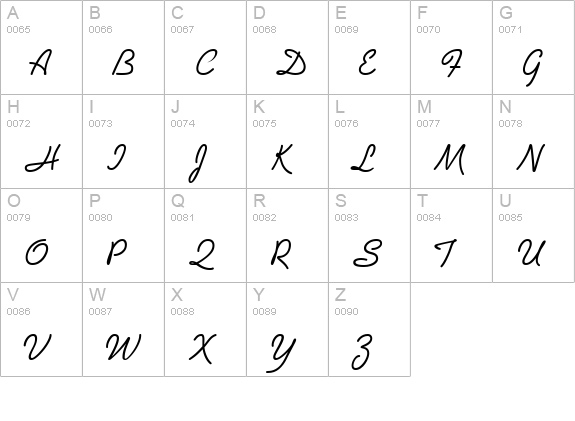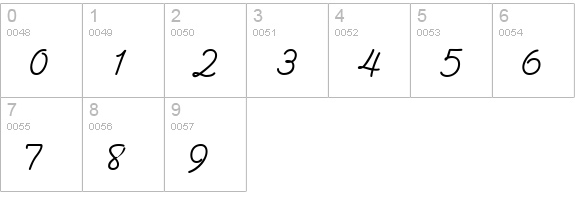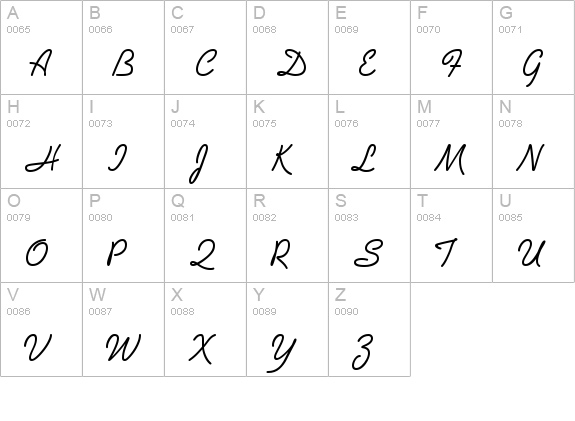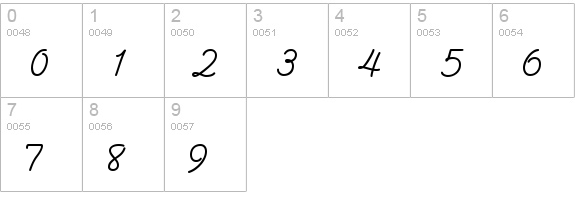
Abrazo Script SSi Normal is the standard, neutral variant in the Abrazo typeface family \xE2\x80\x94 well suited to general body text, paragraphs, and standard typographic work.
Abrazo Script SSi Normal font is a captivating and elegant typeface that exudes sophistication and charm. With its flowing lines and intricate details, this font is perfect for adding a touch of luxury to any project. Whether you are designing invitations, branding materials, or signage, Abrazo Script SSi Normal will elevate your work to the next level. The best part? This stunning font is available for free download at FontsMarket.com. Don't miss out on the opportunity to enhance your designs with Abrazo Script SSi Normal. Download it today and let your creativity shine!